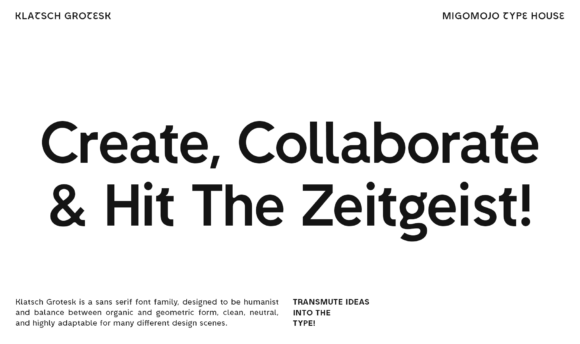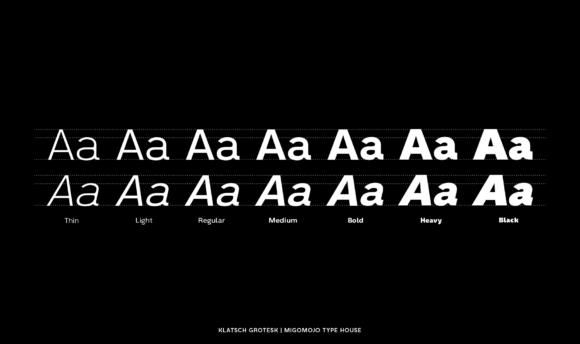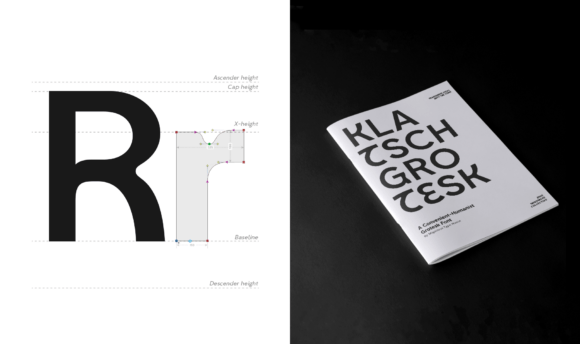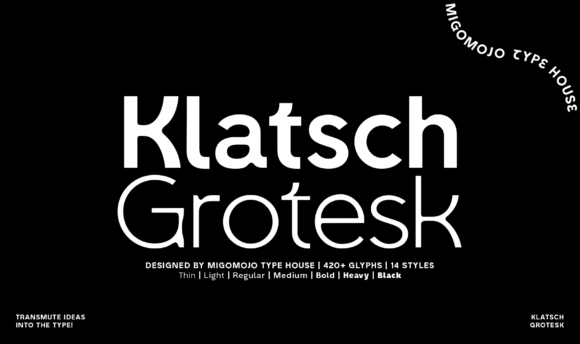
Introduction to Klatsch Grotesk Font
Klatsch grotesk is a sans serif font family, designed to be humanist and balance between organic and geometric form, clean, friendly, and highly adaptable for many different design scenes.
Klatsch Grotesk is available in 14 styles, with over 420 characters, offering broad language and versatility Klatsch offers endless creative possibilities.
Key Features of Klatsch Grotesk Font